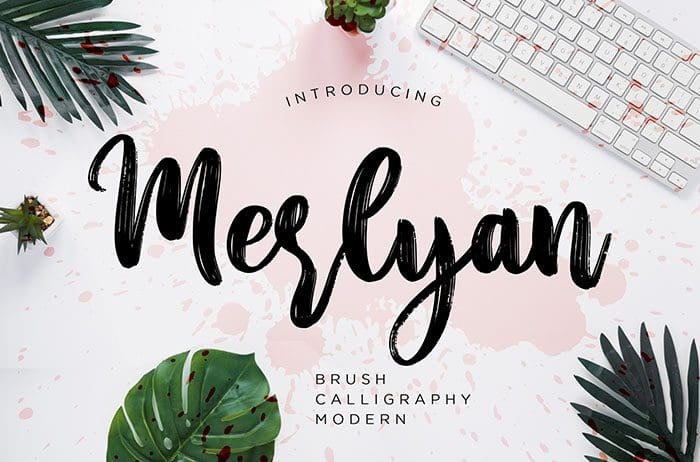
Merlyan is a Brush Font with a handwritten style and elegant looks. Merlyan is perfect for branding projects, logo, wedding designs, labels, and more. Thanks to Creatype Studio for sharing this font! Take a look at this portfolio for more of his stunning fonts.